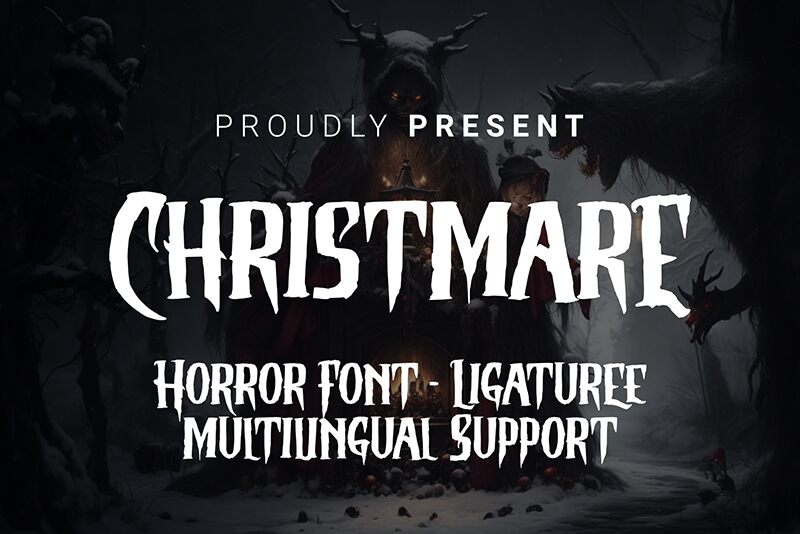
Christmare font by Horror Font exudes a striking horror style with mysterious and intense details. Inspired by old horror movie posters and other vintage influences, this display font creates an instant dramatic effect. Uneven vertical emphasis that reaches sharp endpoints is distinctive for this font family ideal for Halloween and other horror-themed events.
A scary greeting card for Halloween or an eye-catching event poster will gain a strong character with this font. Other ideas include movie posters, book cover designs, social media, and blog posts. This font will also bring a sinister personality to artist websites, and spooky shops, and create an ensemble with t-shirts, badges, and logo designs.